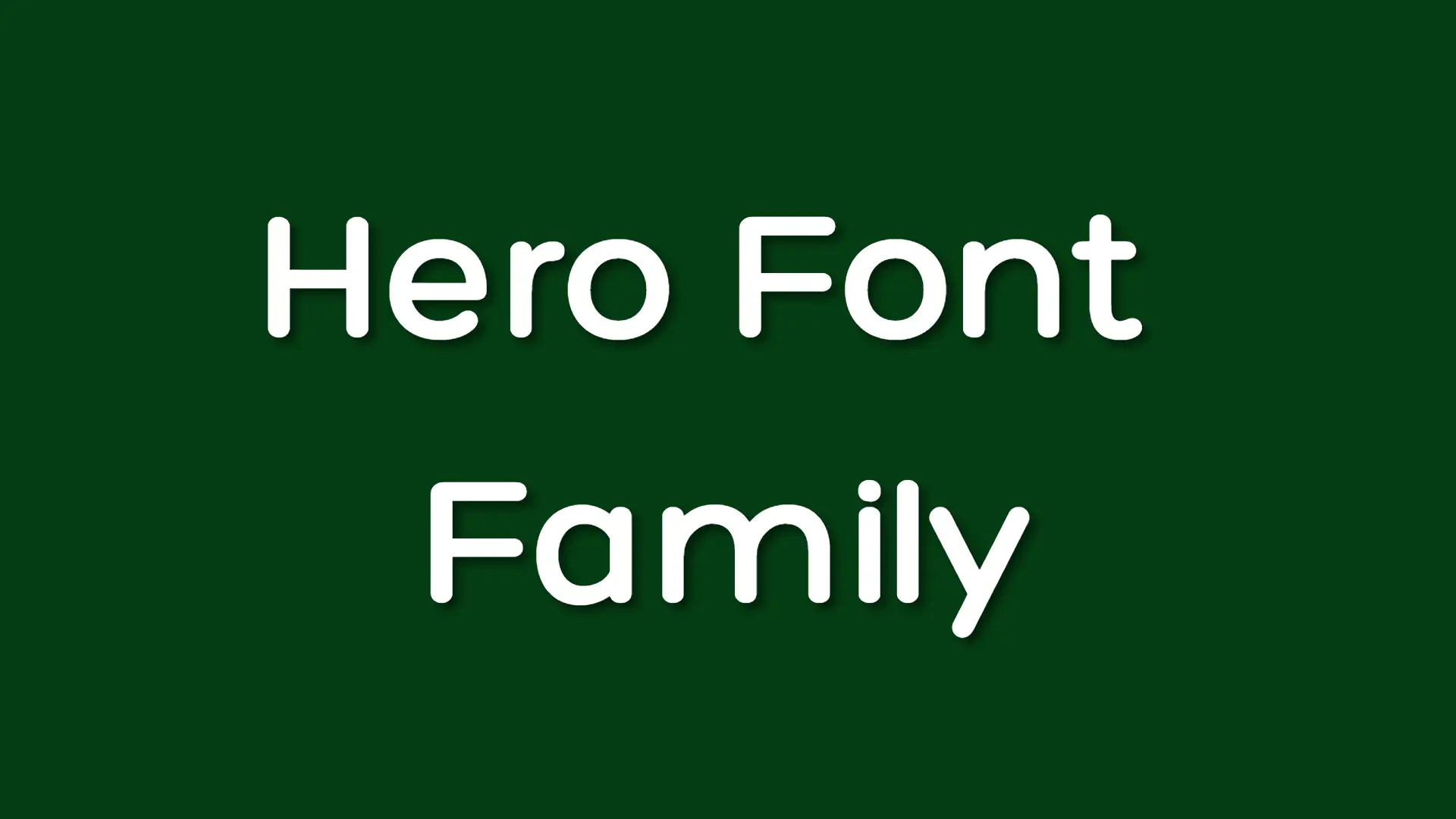
Hero Font Family
- Designer: Svetoslav Simov
- Category: Basic font
- Font styles: 3 (Regular, Light and Bold)
- Glyphs: 408 in the Regular style
What You Can Type With Hero Font Family
You get every letter from A to Z in both cases and all the numbers from 0 to 9, which means Hero Font Family can handle full sentences, dates and prices. Common punctuation such as &, !, ? and @ is included as well. It also has the accented letters you need for Spanish, French, German, Portuguese and Italian. On top of that, it includes Cyrillic characters.
Where Hero Font Family Works Best
Hero Font Family is a natural fit for everyday text, websites and clean logos. Fonts like this are workhorses: use them for body text, captions and anything people need to read quickly. Because the family has more than one style, you can mix them in a single design for headings, subheadings and highlights.
Does Hero Font Family support accented letters?
Yes. Hero Font Family includes the accented letters needed for Spanish, French, German, Portuguese and Italian, so it works for more than just English.
What fonts pair well with Hero Font Family?
Add a more decorative display font for the headline if your design needs extra personality.